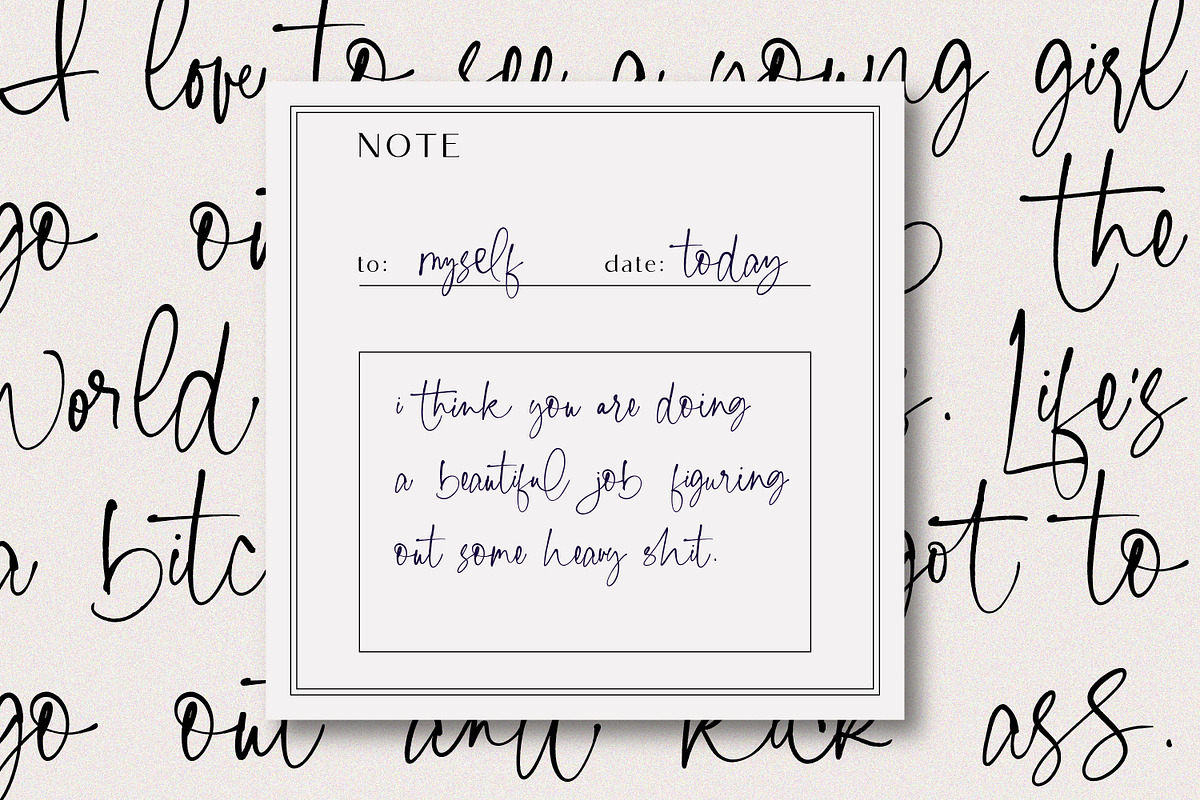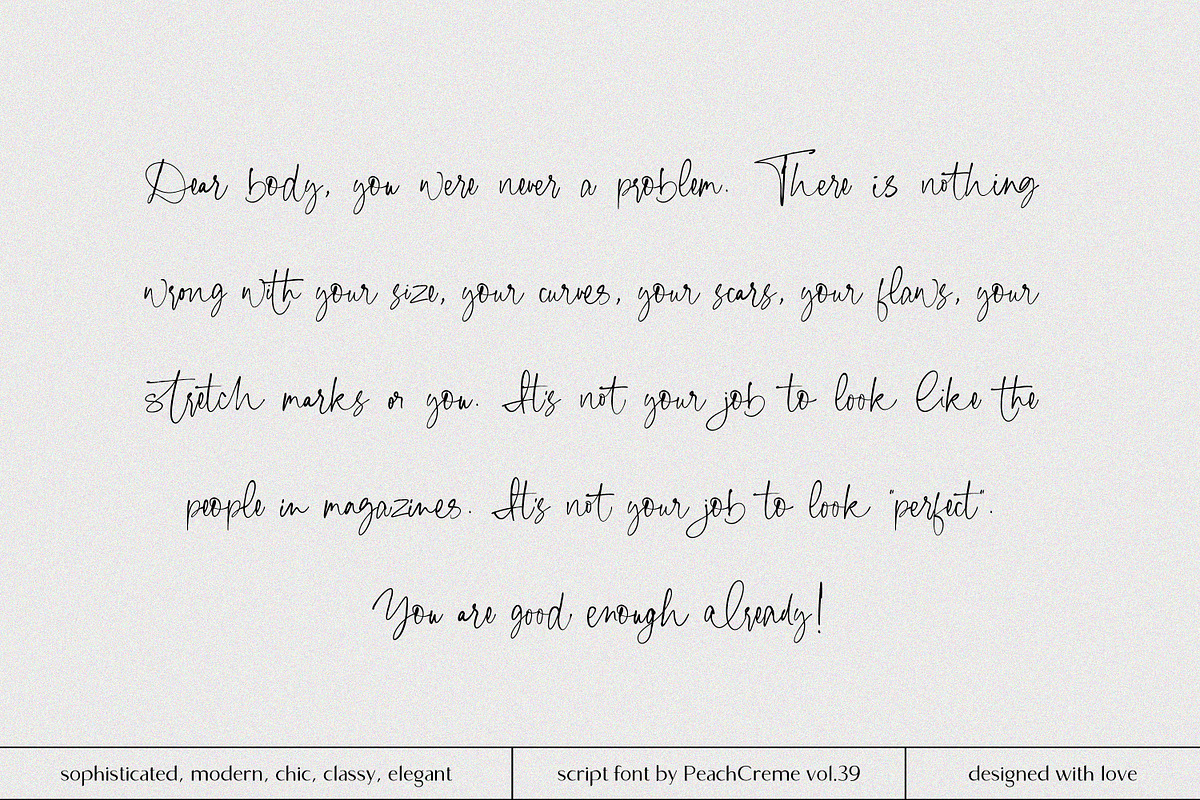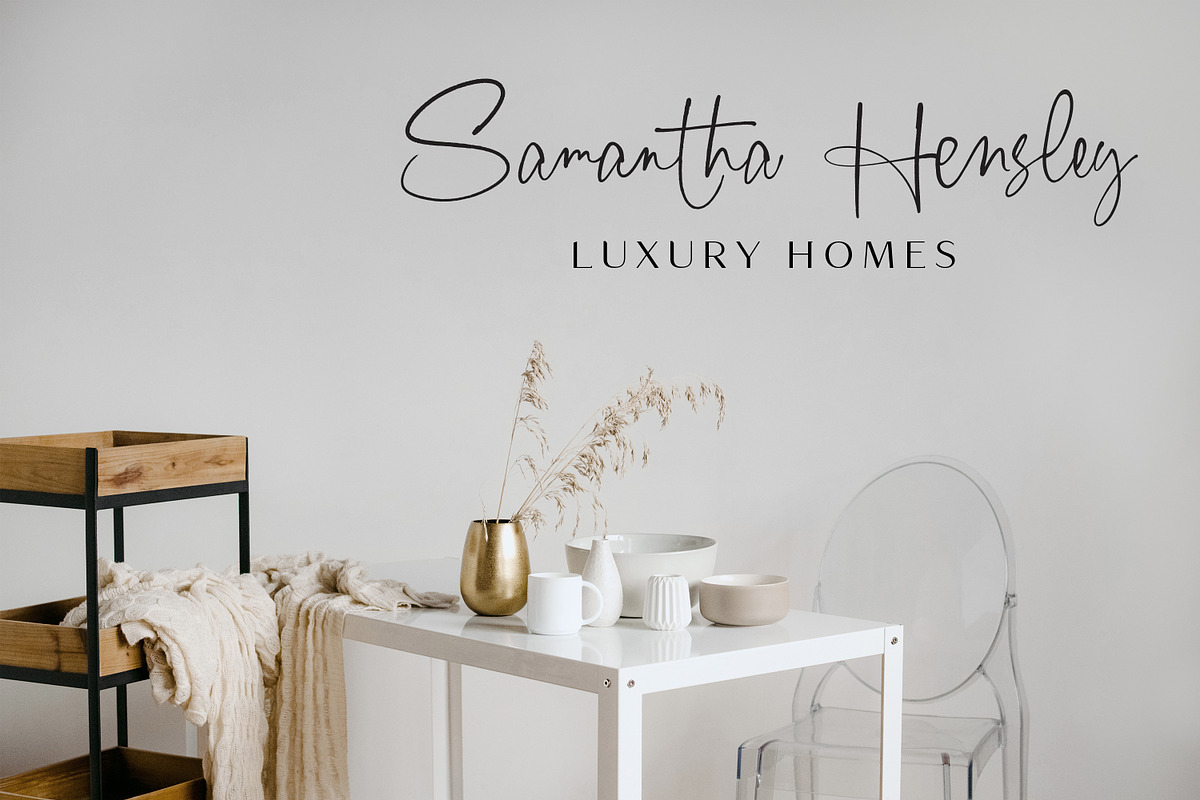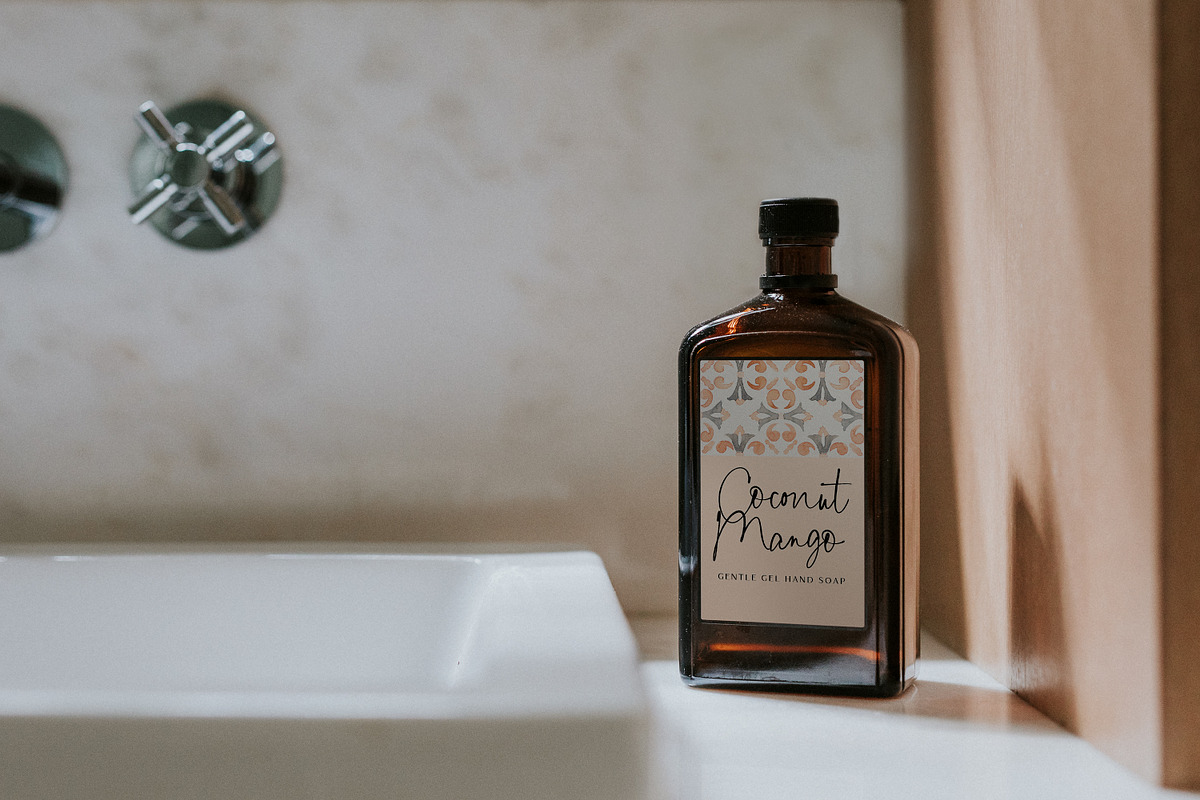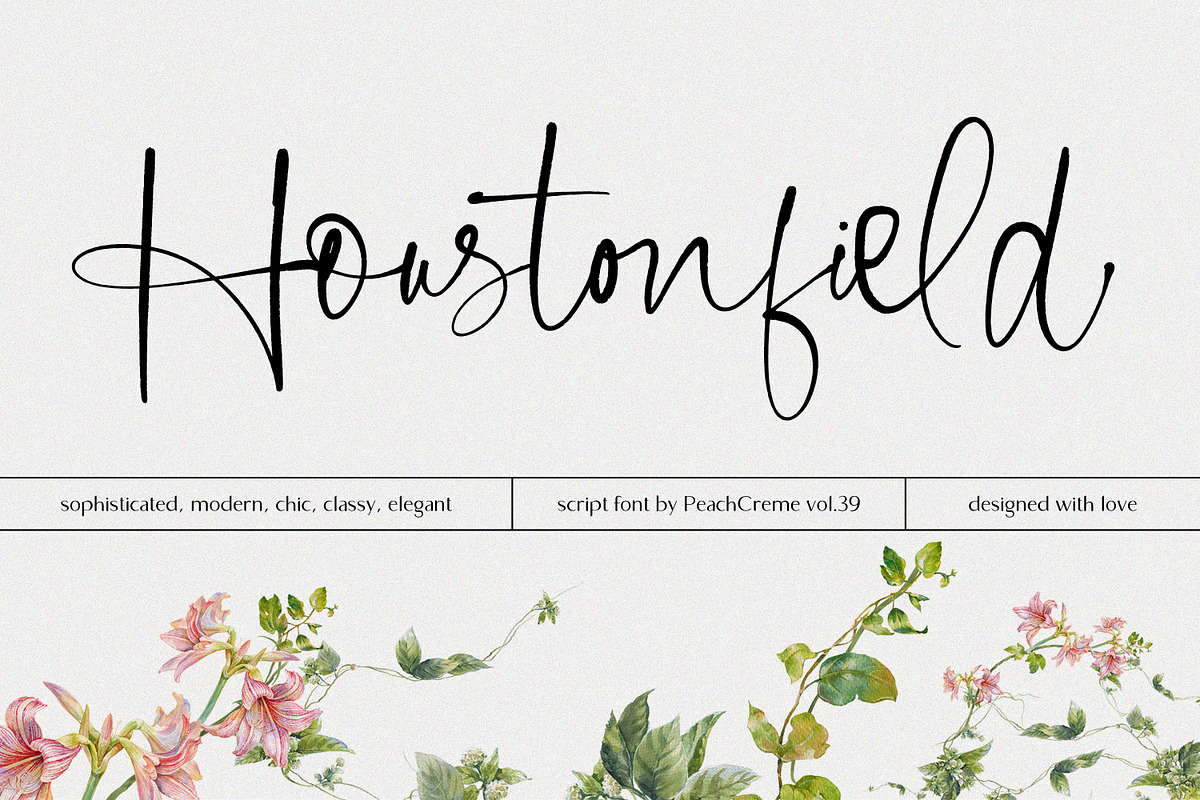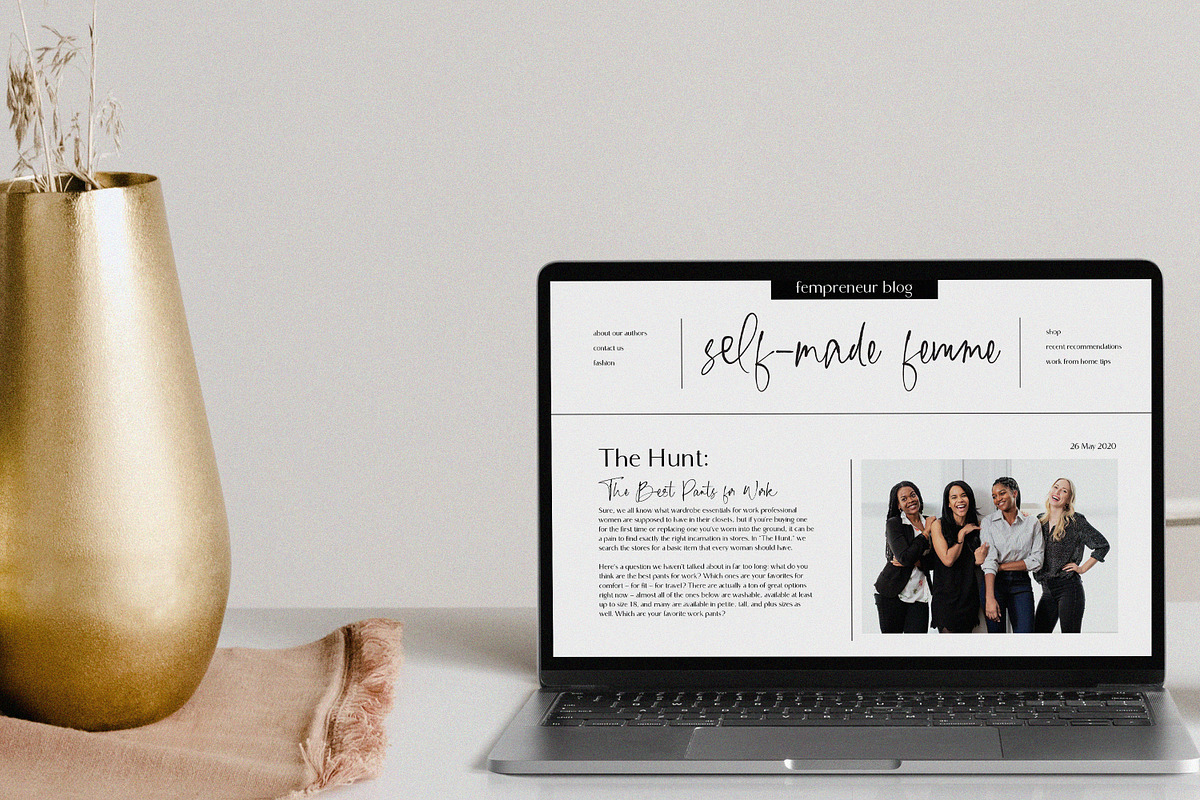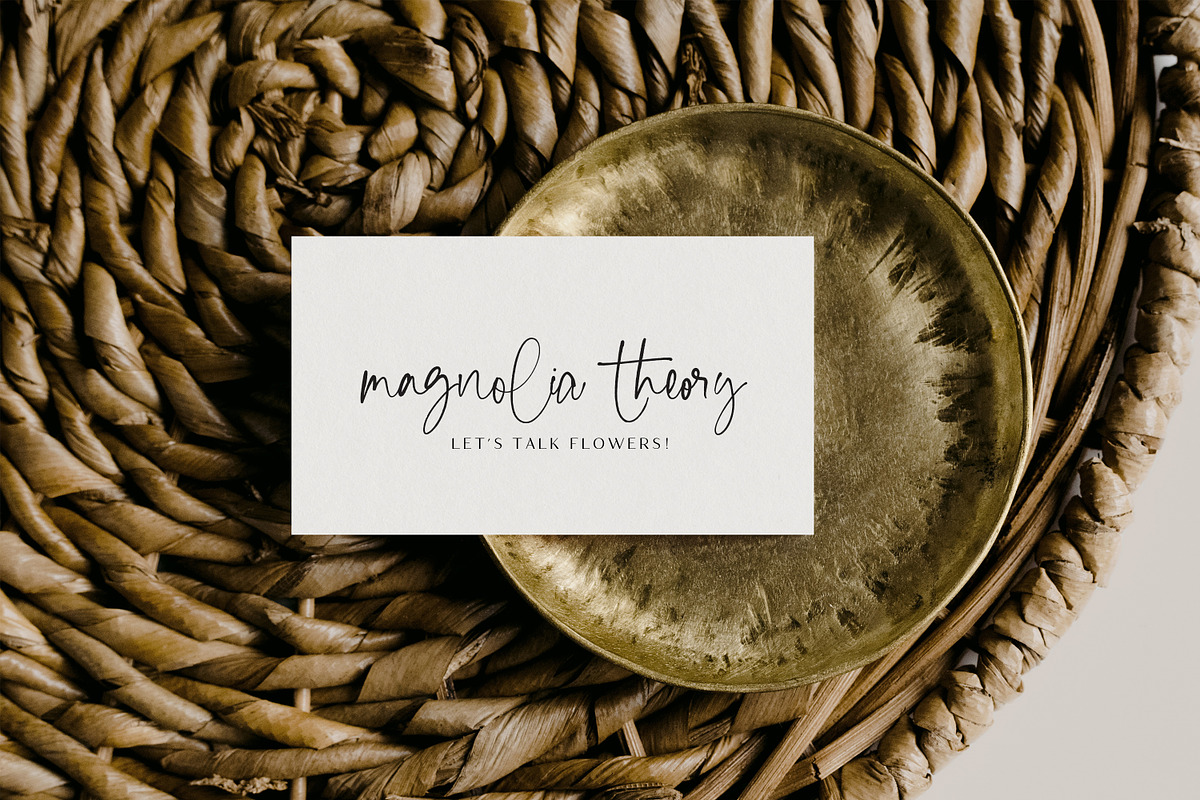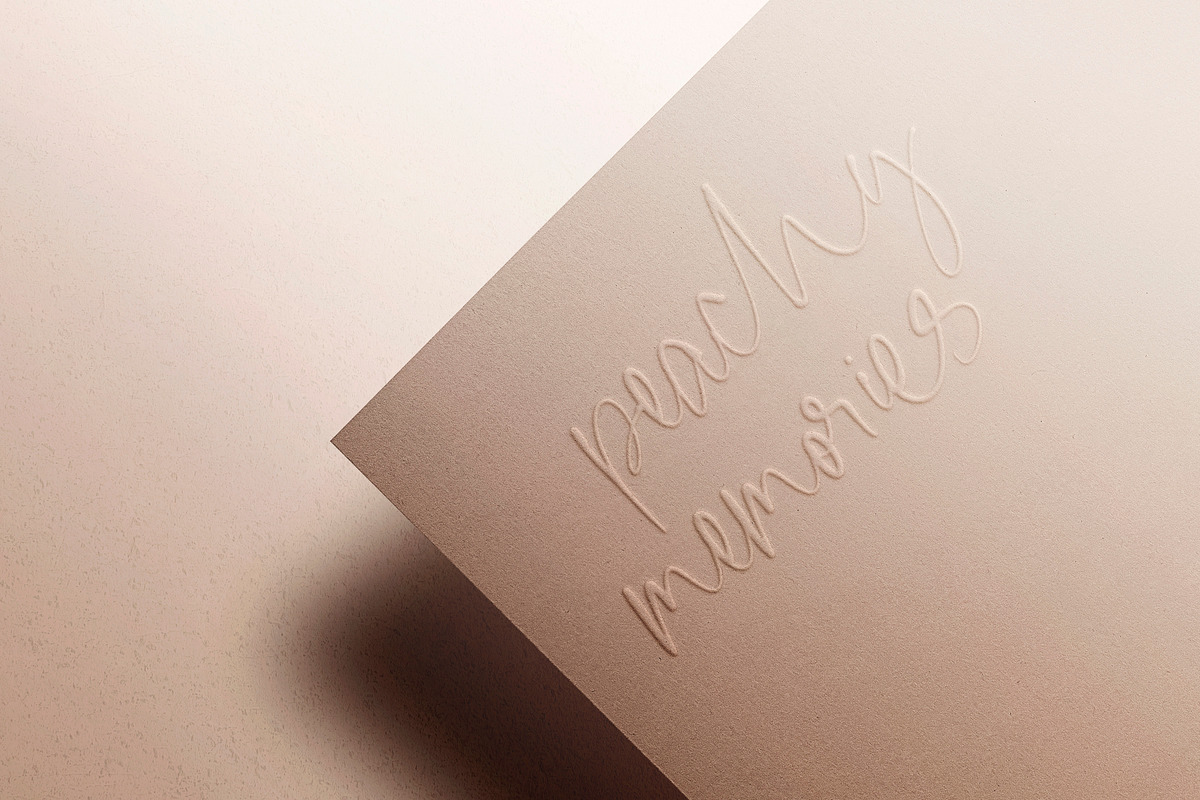
Houstonfield//Modern Script Font
LUXURY MODERN CALLIGRAPHY VOL.39
Houstonfield is a stylish, chic script font. Add a touch of luxe and elegance to your projects. It's perfect for signature logos, wedding invites, wine labels, and many more.
Beautiful font. I really love it. Just the paths are wobbly, when you zoom in. But other than that it is just marvellous! Thanks for makting this. :)